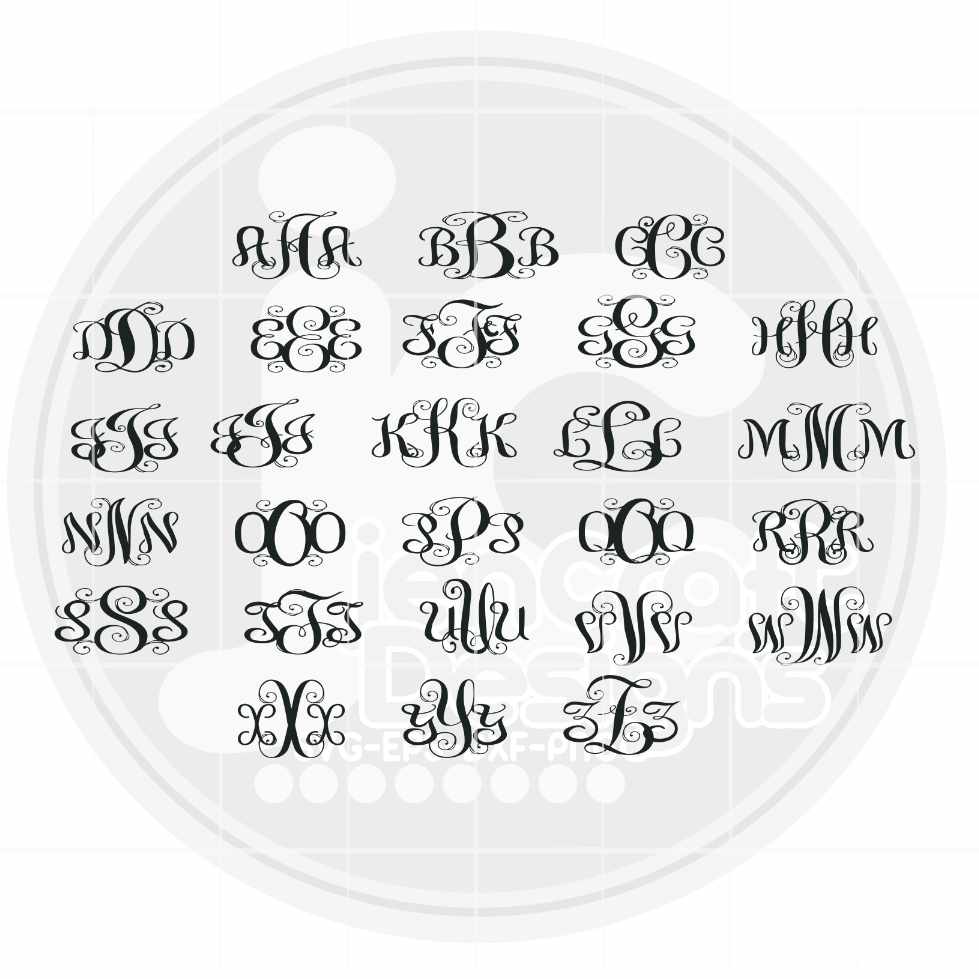
Fancy Interlocking Monogram Font | .TTF & .OTF Installable Font
Create gorgeous fancy interlocking monograms with ease! Simply install this Fancy Interlocking Curly Monogram Font on your computer and type out your letters — no more uploading individual letter files into your cutting software. Works with Cricut, Silhouette, Adobe, and more. Instant digital download!
- Type lowercase for the outside letters and UPPERCASE for the center letter to achieve the classic monogram look